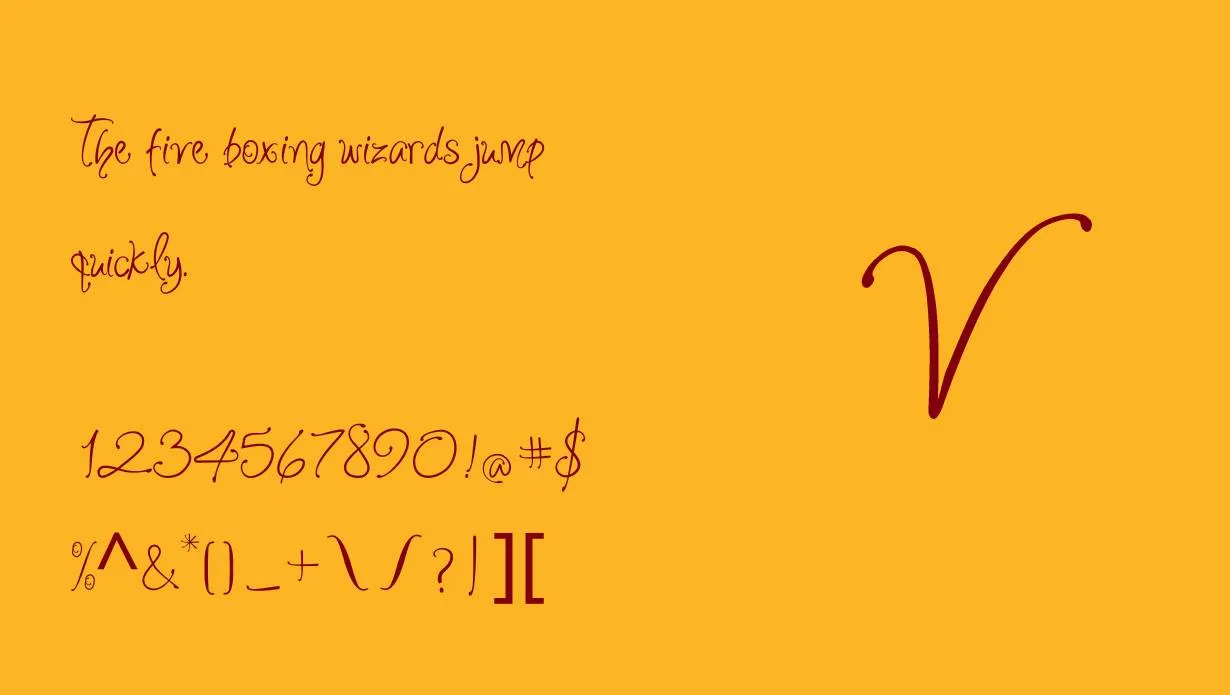
The Violet Bee font is a type of writing that may have a delicate and artistic look. It has letters with intricate details, resembling the beauty of a bee.
When people use the Violet Bee font, it adds a touch of elegance and nature-inspired design to their words. This font is often selected for projects that want to convey a sense of beauty and sophistication.